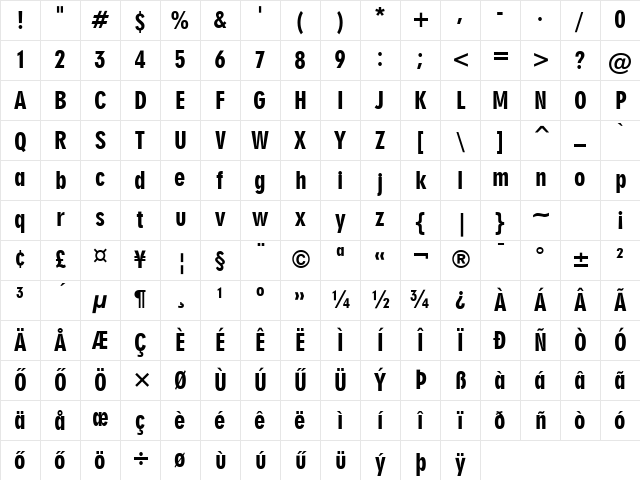
Geometric-706 BlConHU is a composed and adaptable typeface that performs quietly and consistently across a wide range of design contexts. Its narrow stance lets it pack a punch even in space-constrained designs.